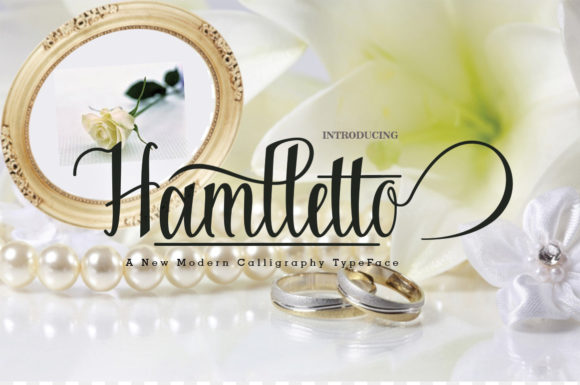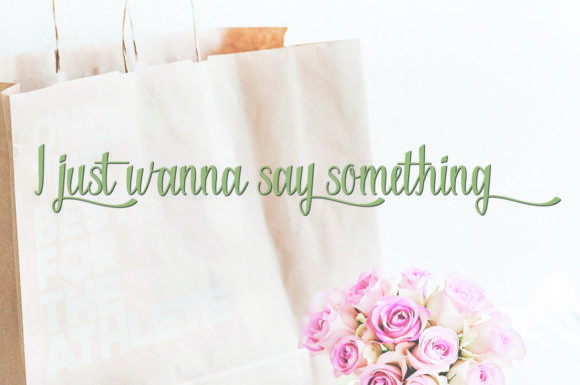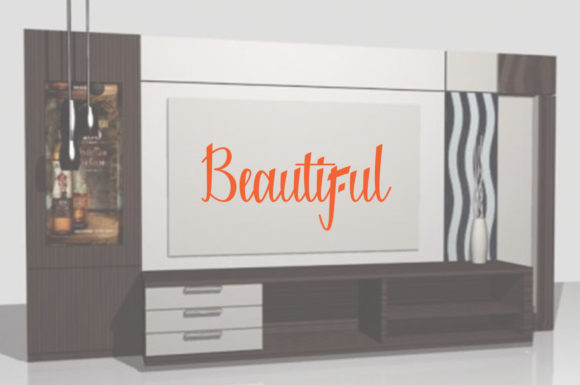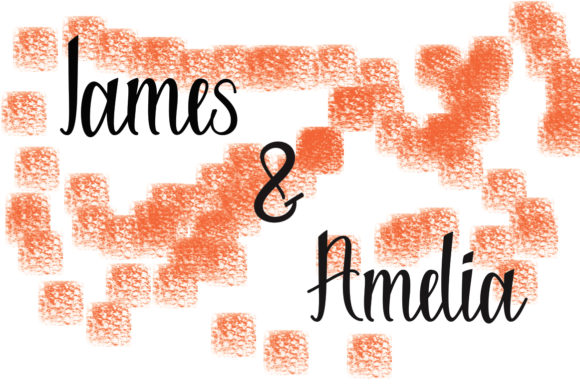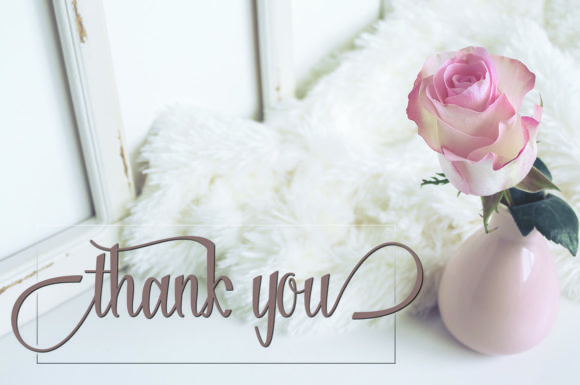
Hamlletto Font
About Hamlletto Font
Hamlletto is an elegant and light script font with an authentic vibe. It will effortlessly turn any design project into a stand out!